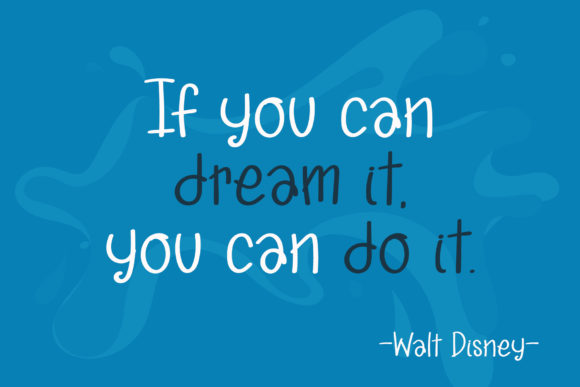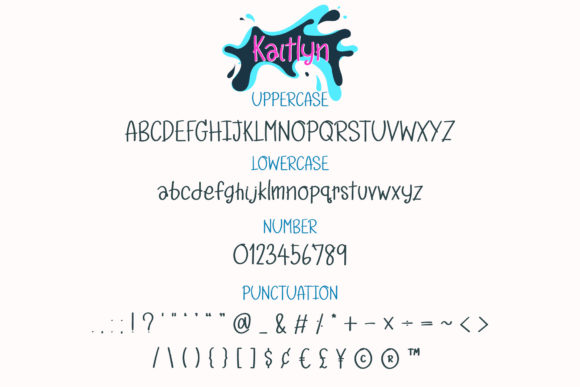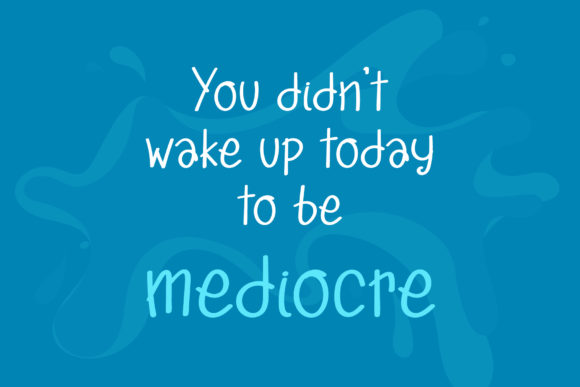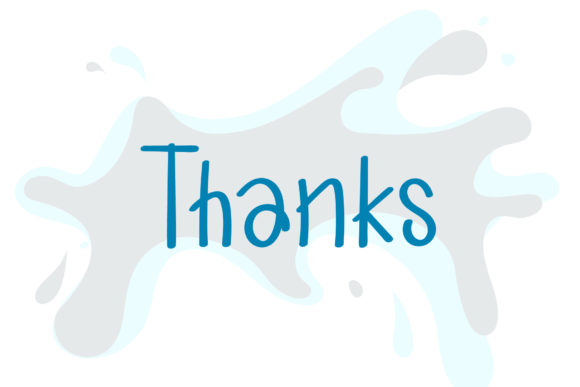
Kaitlyn Font
About Kaitlyn Font
Kaitlyn is a cute and casual handwritten font with an incredibly friendly feel. Whether you’re looking for fonts for Instagram or calligraphy scripts for DIY projects, this font will turn any creative idea into a true piece of art!